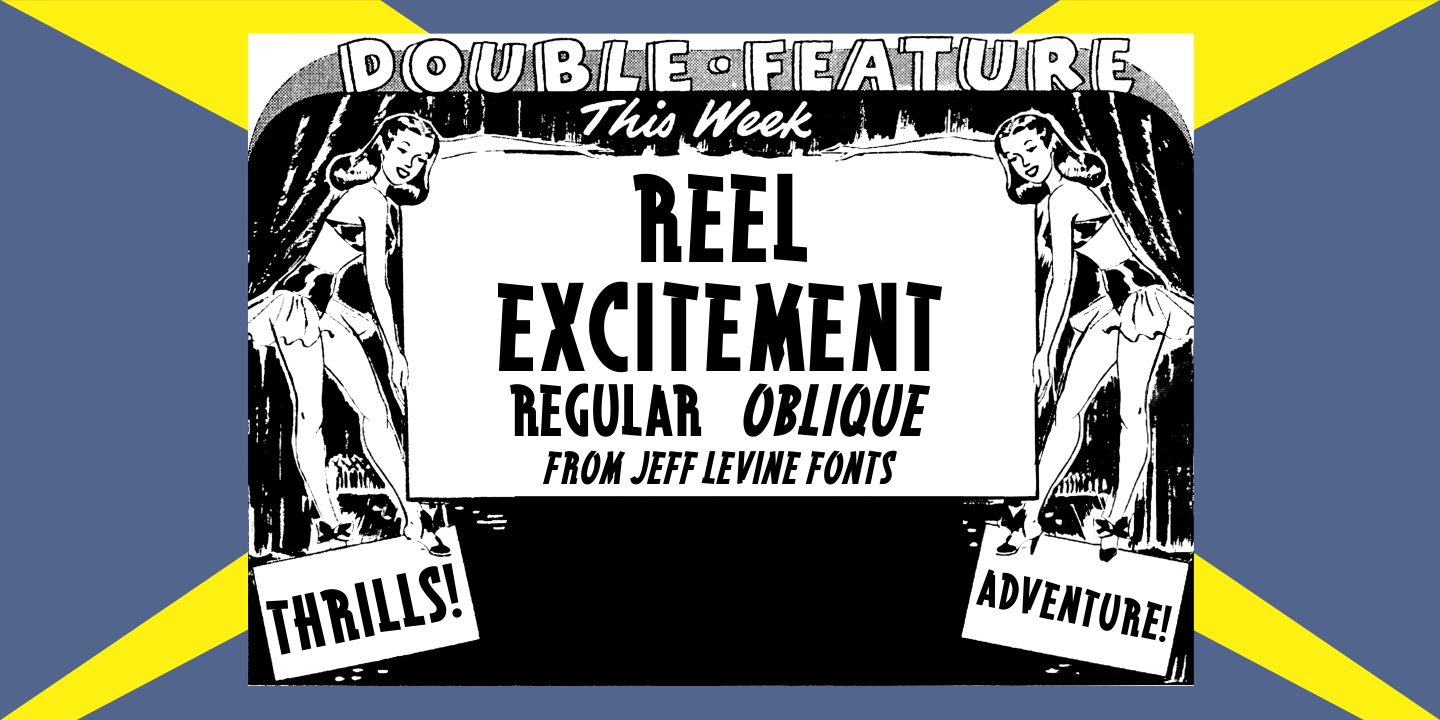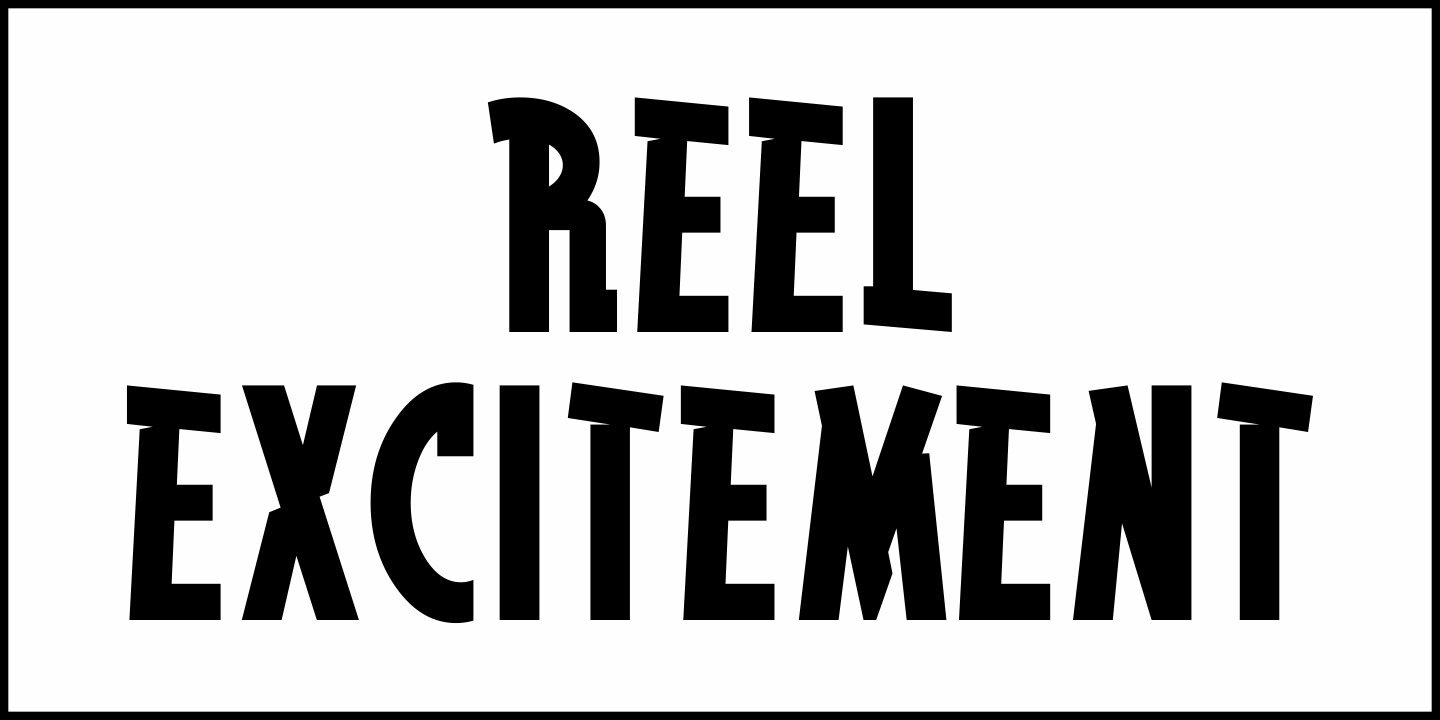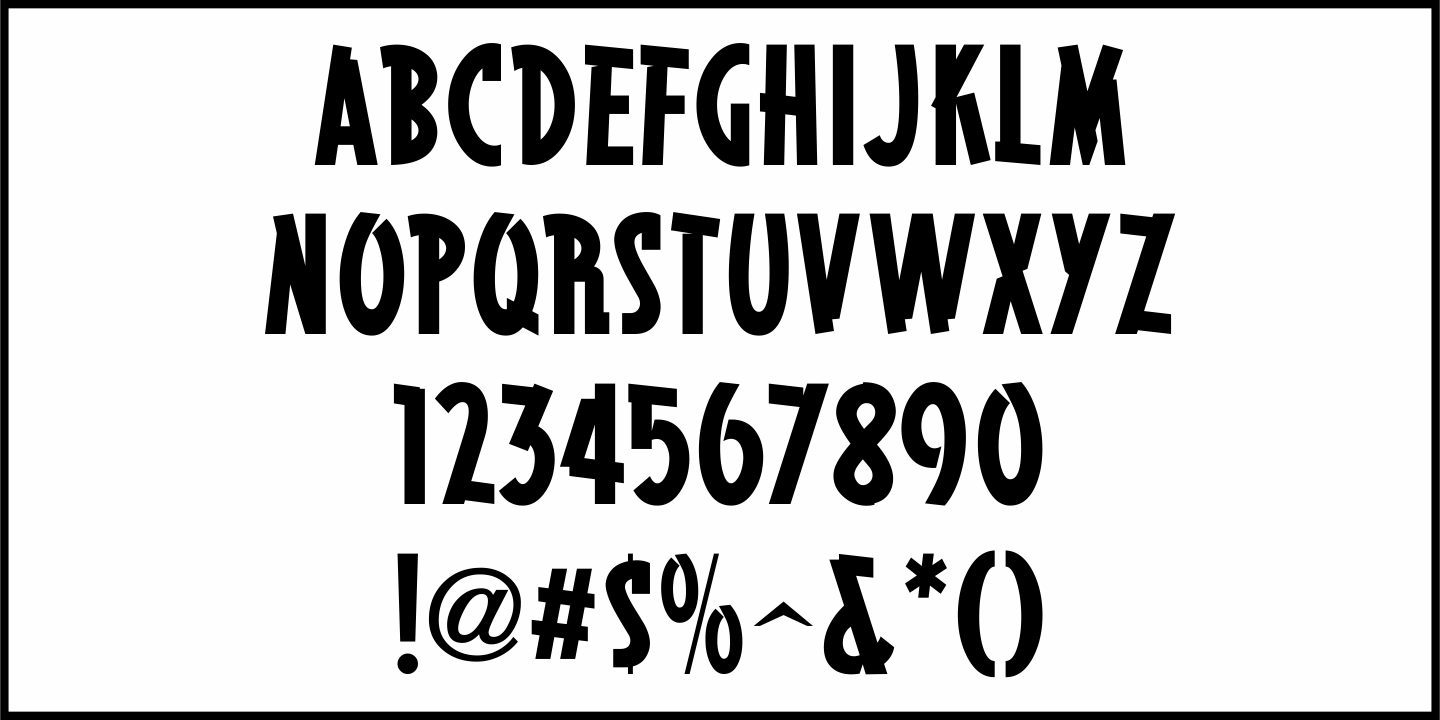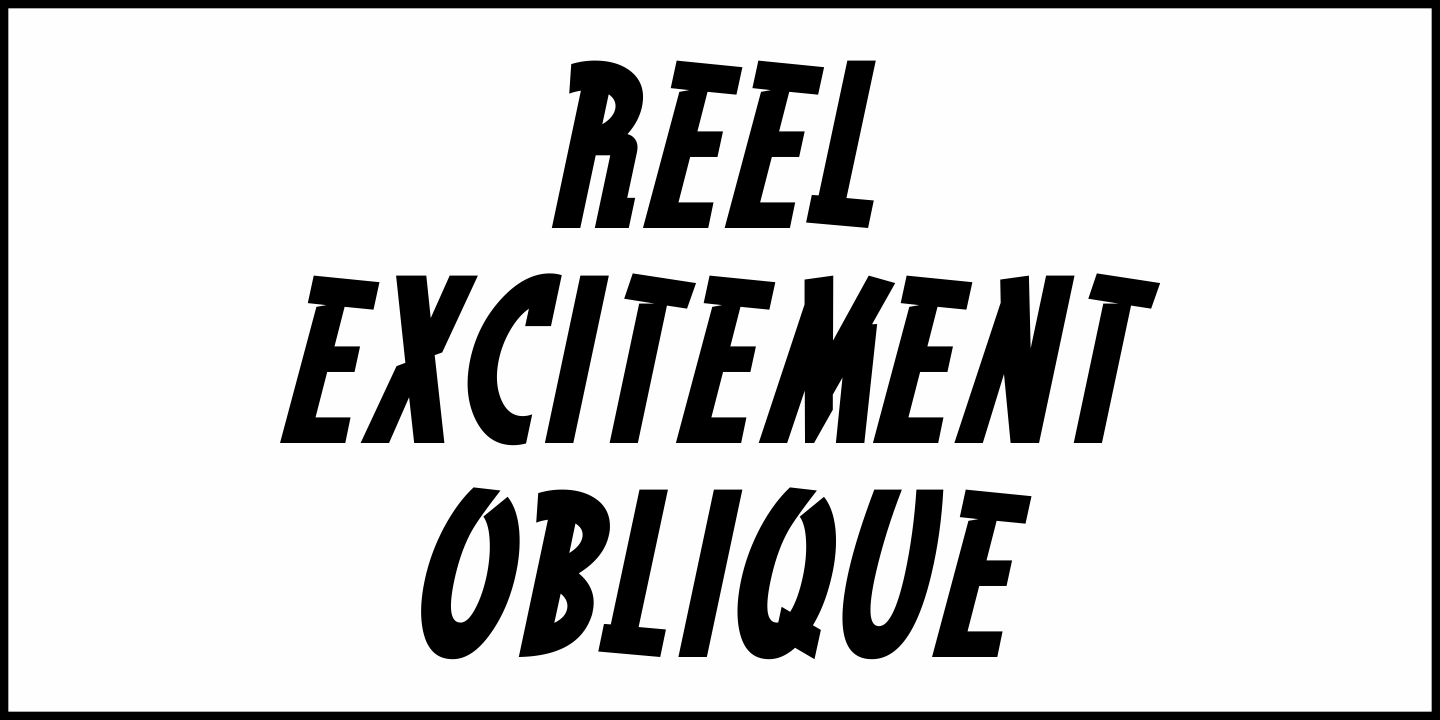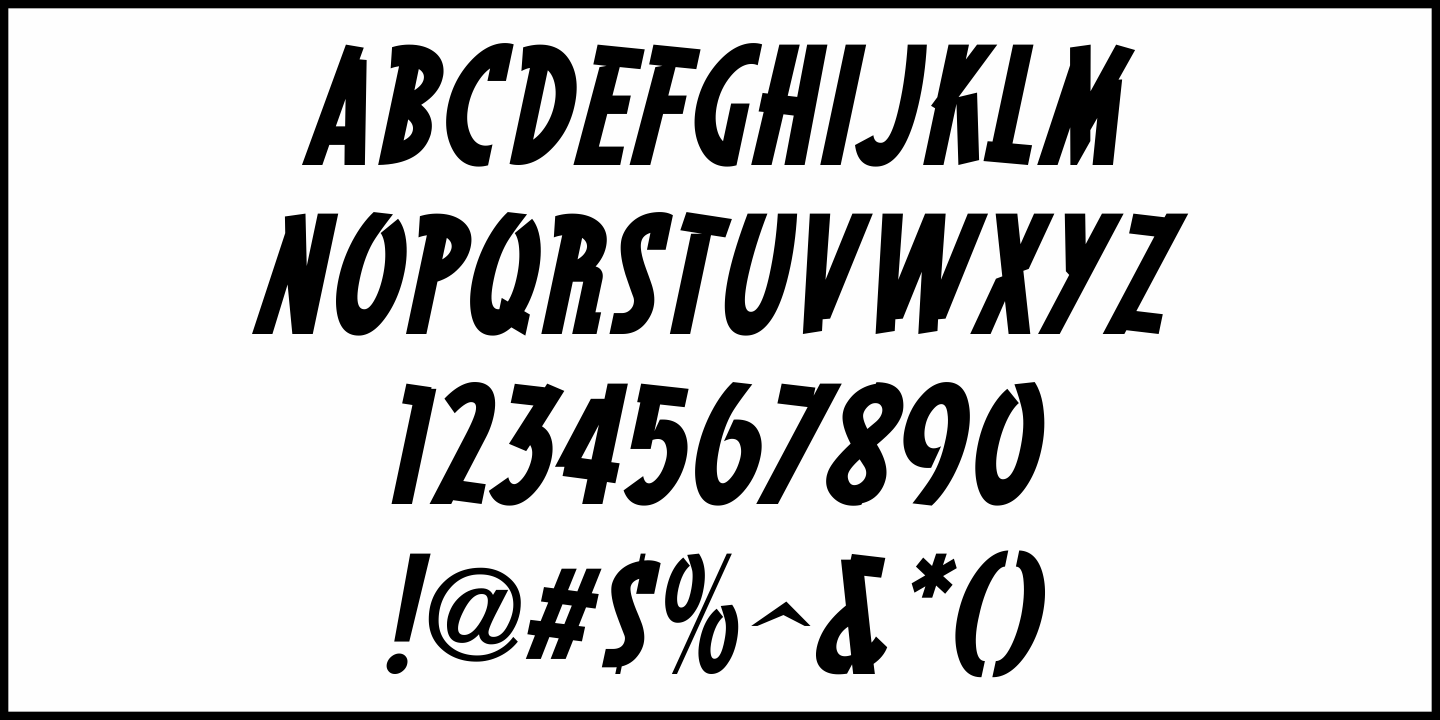
Reel Excitement
The ad in the November 12, 1938 issue of Boxoffice Magazine for the science fiction film "Mars Attacks the World" had the movie's title hand lettered in a free form slab serif design with a slight hint of Art Deco influences.
This became the working model for Reel Excitement JNL, which is available in both regular and oblique versions.